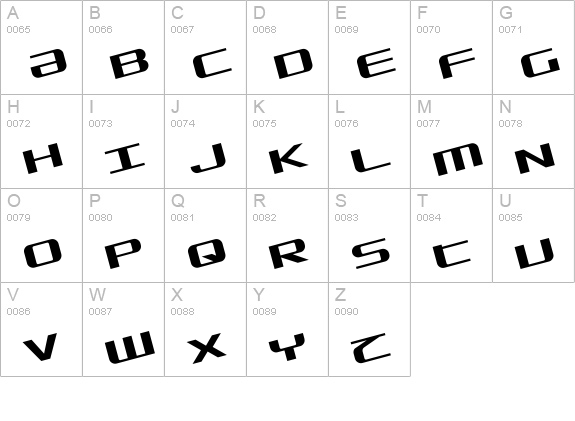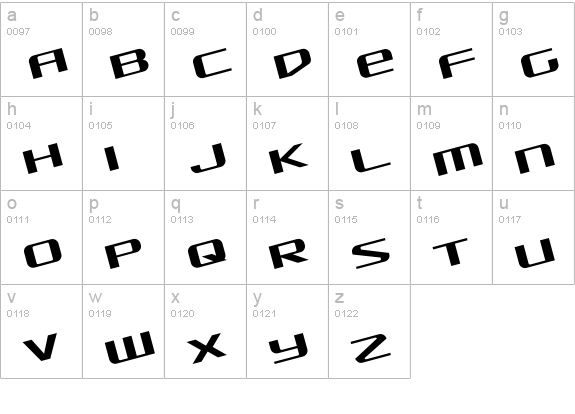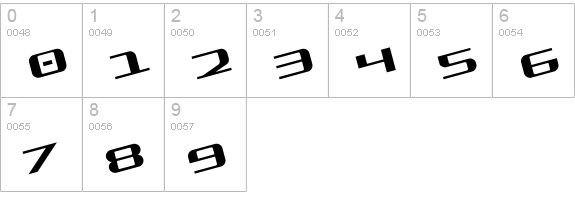
SDF Rotate is a modern and stylish font that brings a unique twist to any design project. With its sleek angles and bold presence, this font is perfect for making a statement. Whether you're designing a logo, poster, or website, SDF Rotate's versatility is sure to impress. What's even better is that SDF Rotate is available for free download at FontsMarket.com. Yes, you read that right - this eye-catching font can be yours at no cost! Don't miss out on the opportunity to add SDF Rotate to your font collection and elevate your designs with its contemporary flair. Download it today and let your creativity flow with this striking typeface.